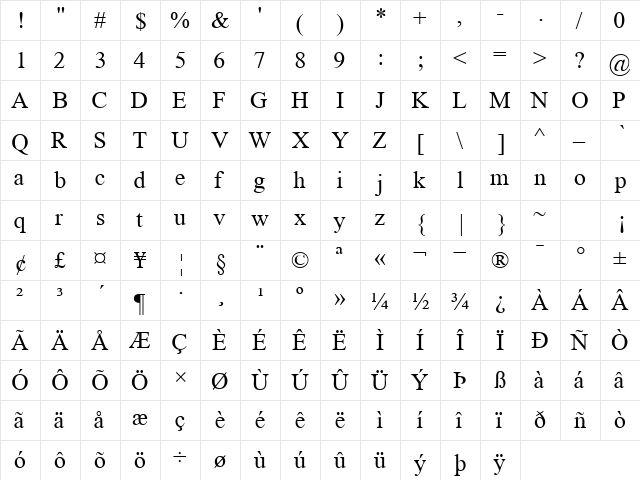
GrecoRecutSSK Regular
Design Context for GrecoRecutSSK Typeface
GrecoRecutSSK takes a measured approach to typography — its balanced proportions and neutral character make it a reliable workhorse for both digital and print work.